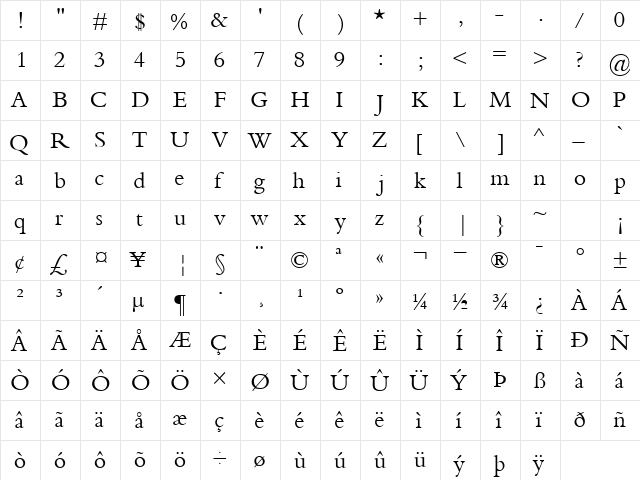
KuriakosSSK Regular
Design Context for KuriakosSSK Typeface
KuriakosSSK is a composed and adaptable typeface that performs quietly and consistently across a wide range of design contexts.